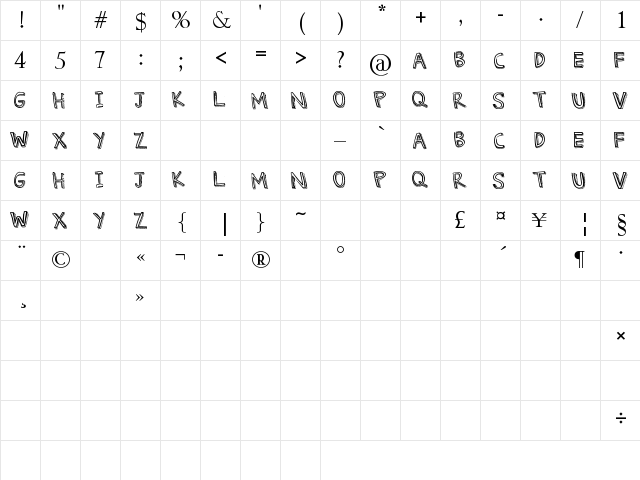
Denne Threedee Regular Font Preview
Denne Threedee Regular
Design Context for Denne Threedee Typeface
Denne Threedee is a composed and adaptable typeface that performs quietly and consistently across a wide range of design contexts.